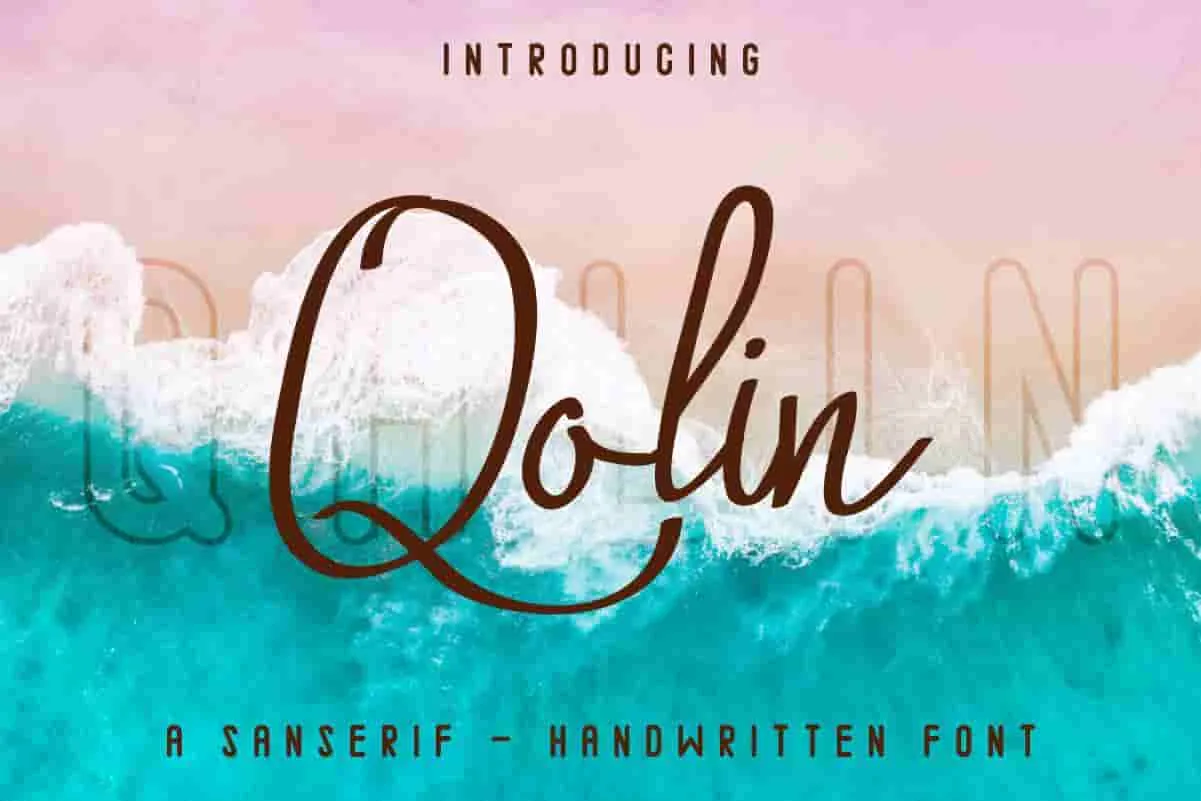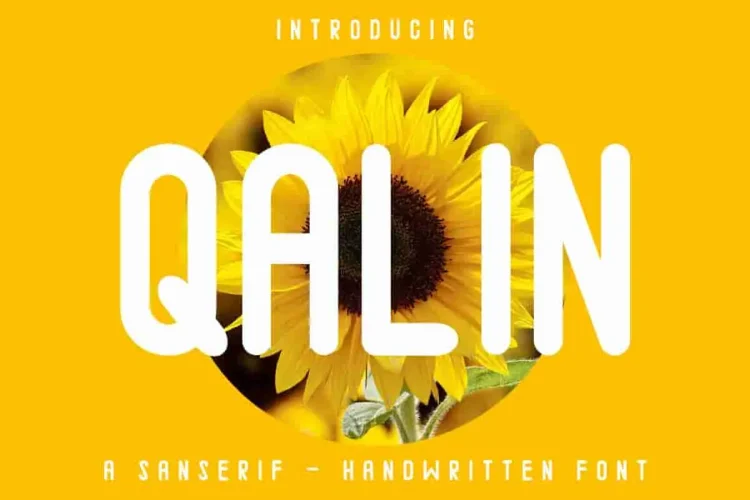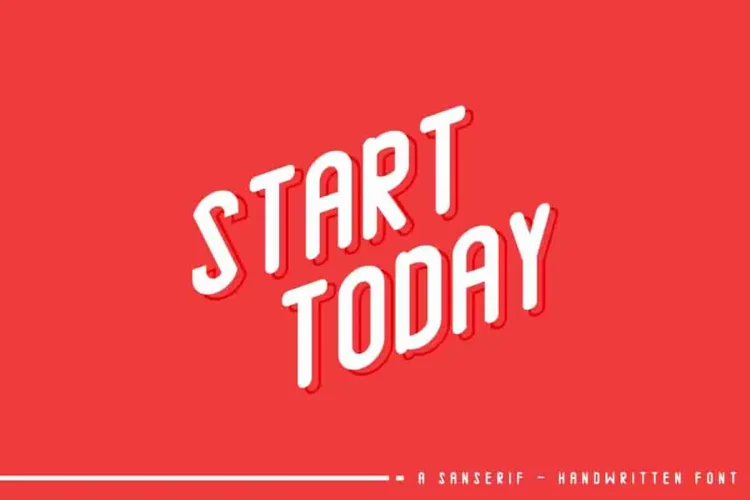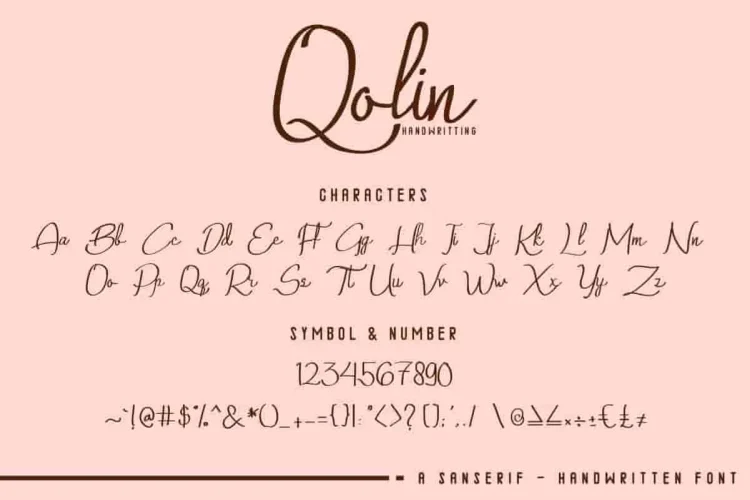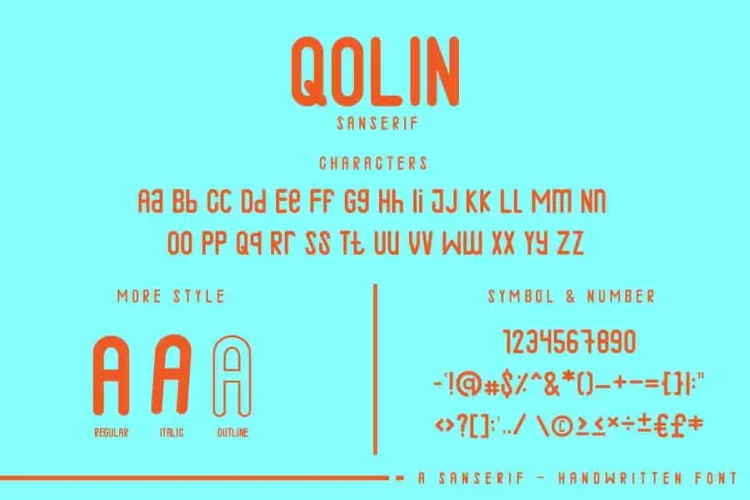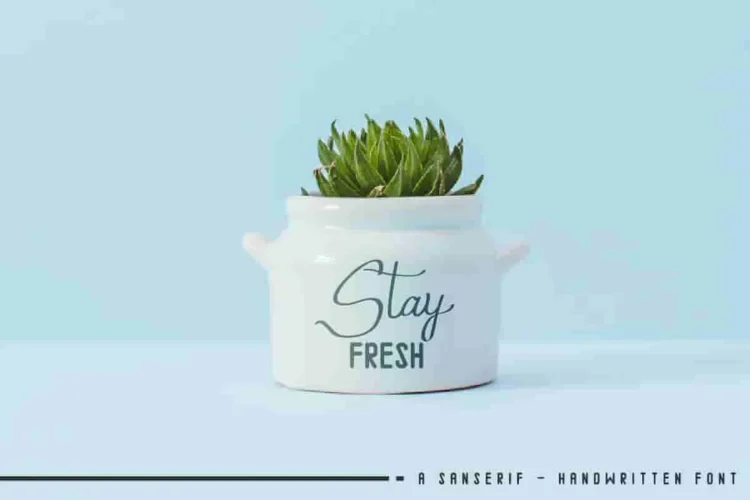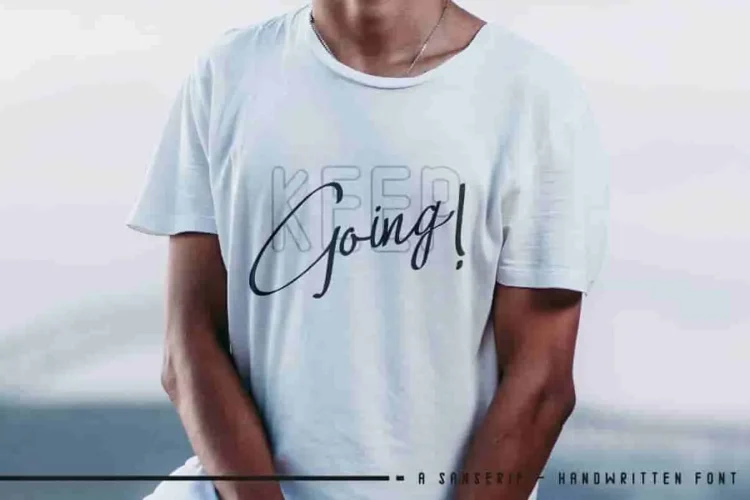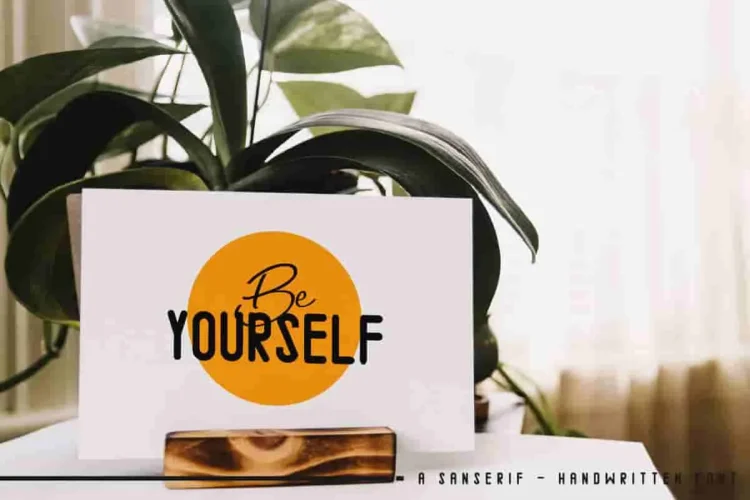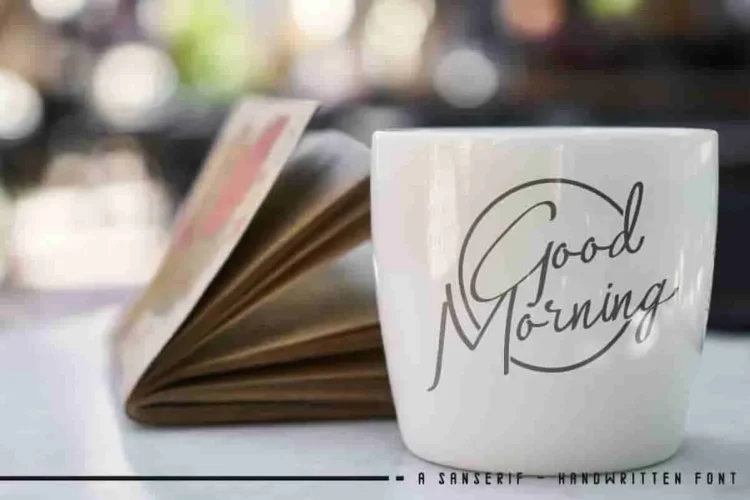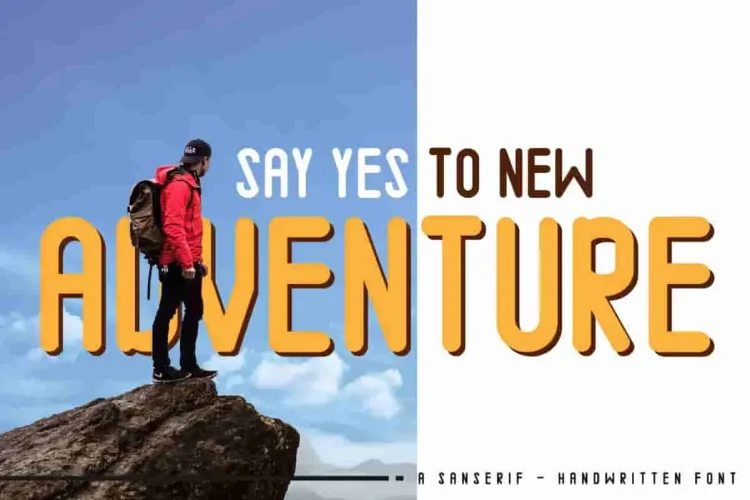
Qalin SansSerif Handwritten Font Duo
Hi Everyone! Let Us introducing our newest font : Qalin ! This is a combination font : Sans and Handwritting script. It has a new modern script handwriting feminine signature style font. with exclusive, elegant, natural and stylish glyph. Will be perfect for branding, logo, stationery, business card, signage, flyer, brochure etc.
đź§© Two Contrasting Styles, One Seamless Pairing
Qalin comes in two main styles that complement each other perfectly. The Sans Serif version includes Regular, Italic, and Outline styles — each crafted for clarity and aesthetic balance.
• The Regular style has smooth, rounded edges that give it a friendly yet professional tone.
• The Italic brings a subtle slant for motion and expression.
• The Outline version adds a trendy, eye-catching edge that works wonderfully for packaging, headlines, or standout branding elements.
Transitioning from bold structure to soft expression, the Qalin Handwriting Script adds a personal and feminine touch. Its flowing, natural strokes feel like authentic handwriting — perfect for logos, signatures, social media quotes, invitations, and lifestyle branding.
🖋️ What Makes Qalin Special:
• Font Duo in One Package – Sans Serif & Handwriting for maximum creative flexibility
• Modern Yet Personable – Perfect for contemporary brands with a human touch
• Multiple Industry Use Cases – Great for real estate, fashion, beauty, law firms, consultants, event planners, and more
There are many industries that is suitable for this font : construction, real estate, agency, law firm, salon, hair stylish, organizer, consultant, dentist, designer, chef, etc